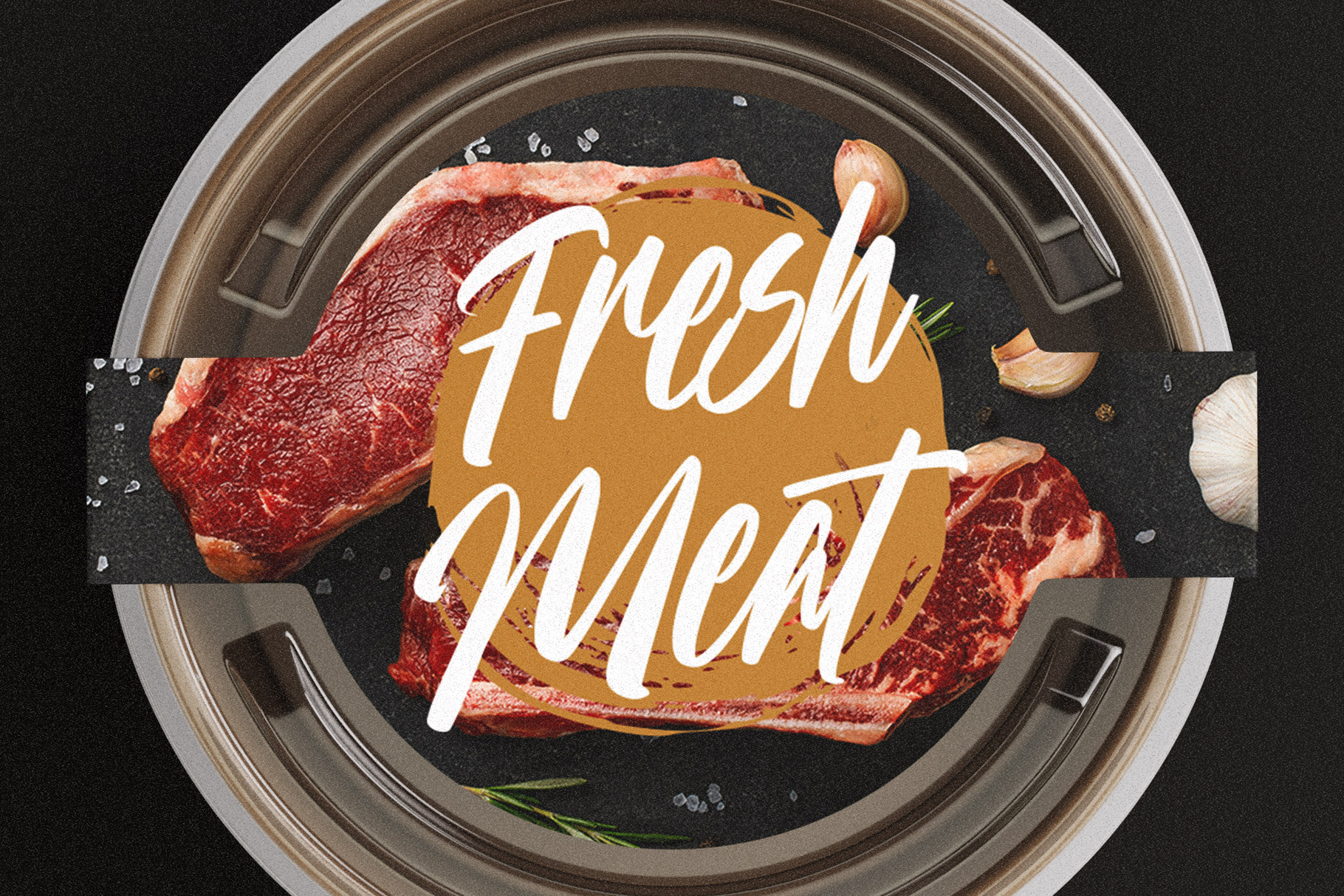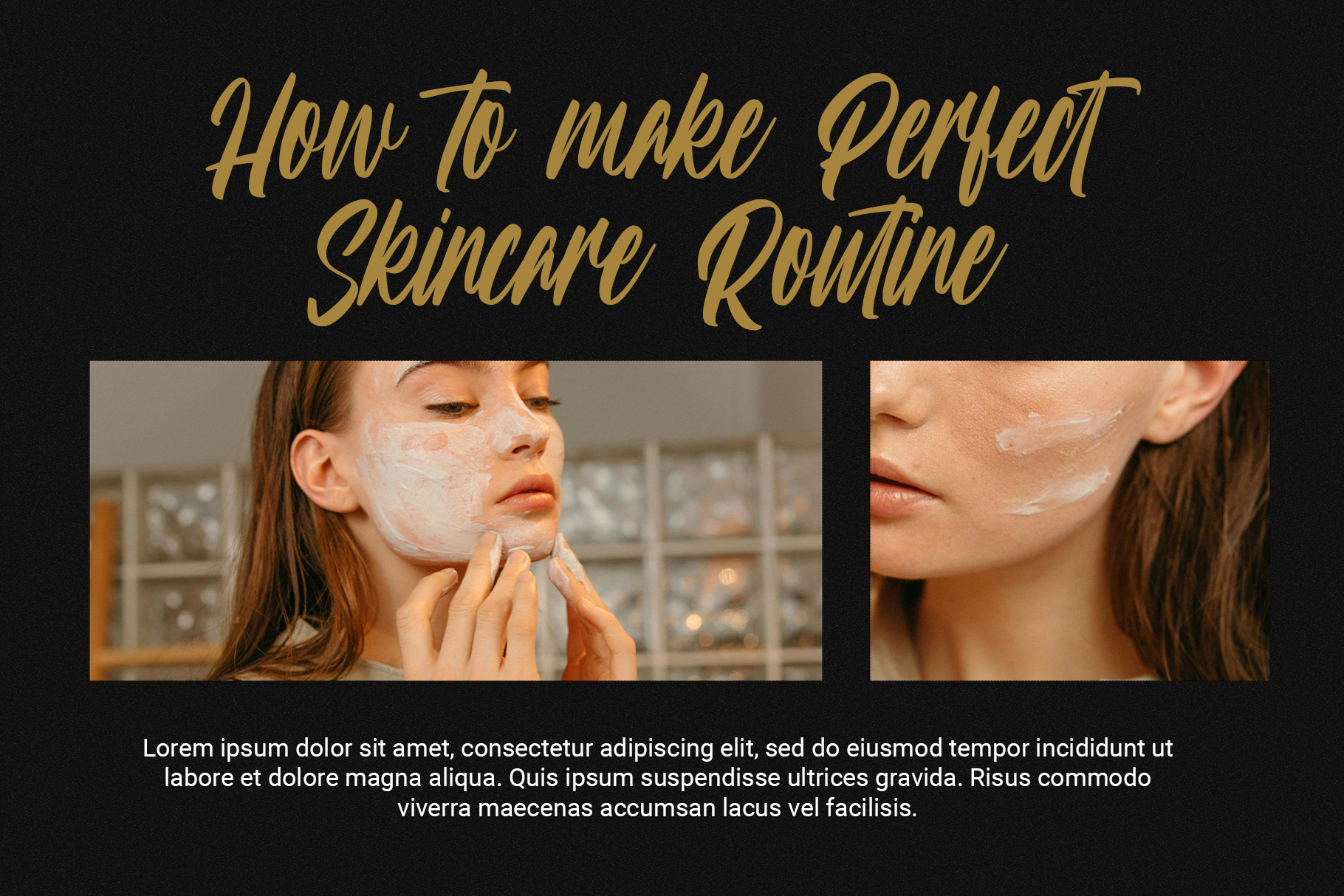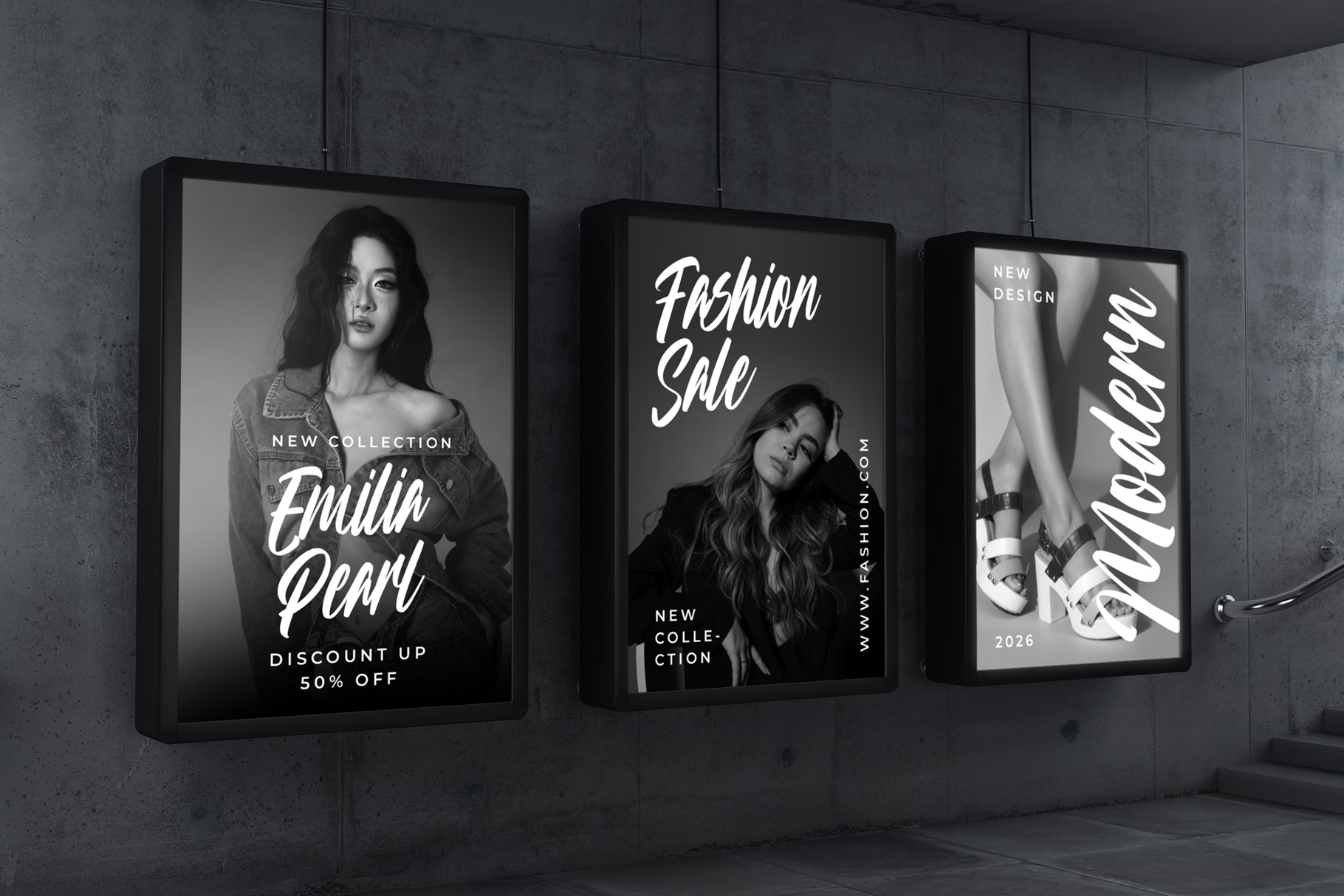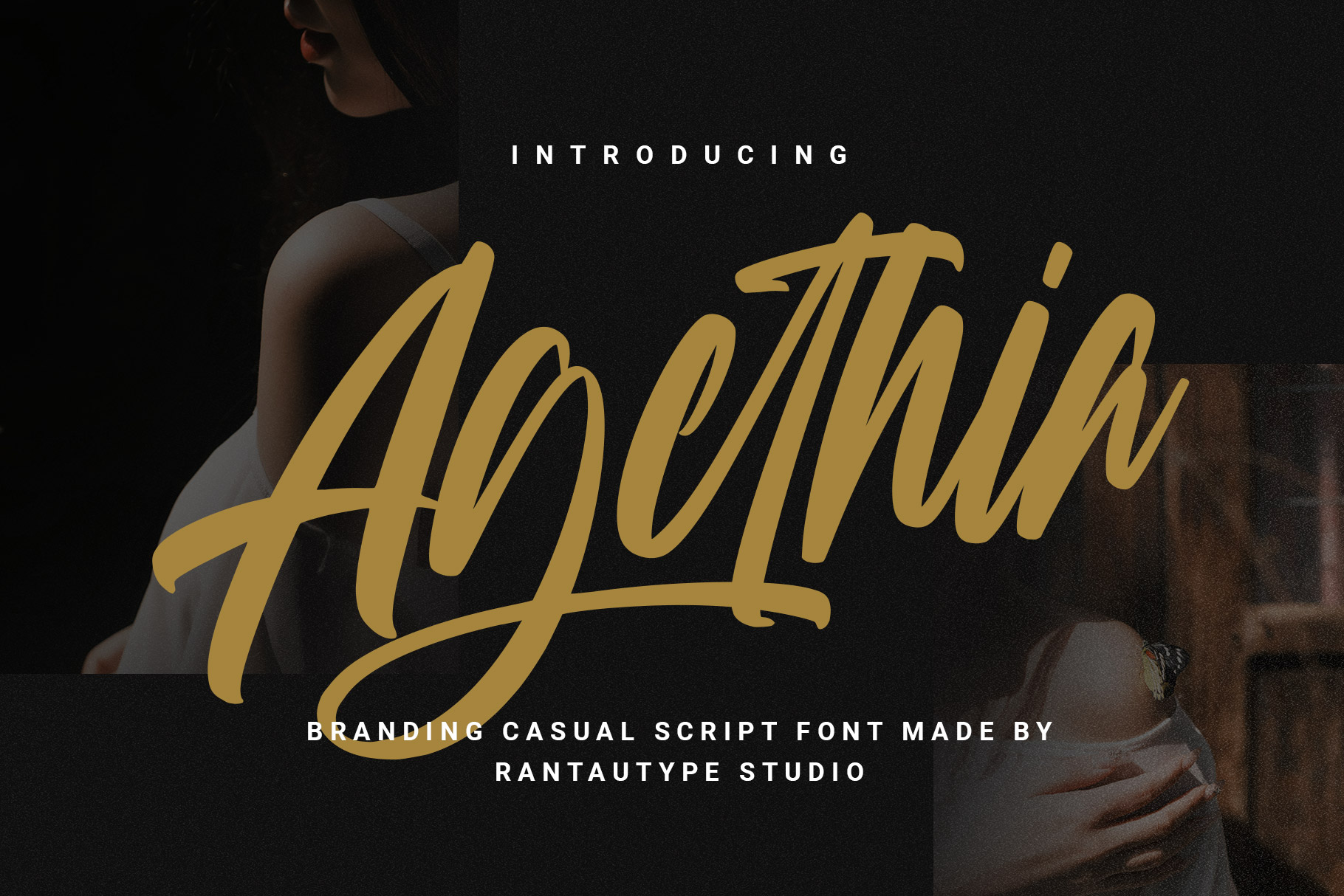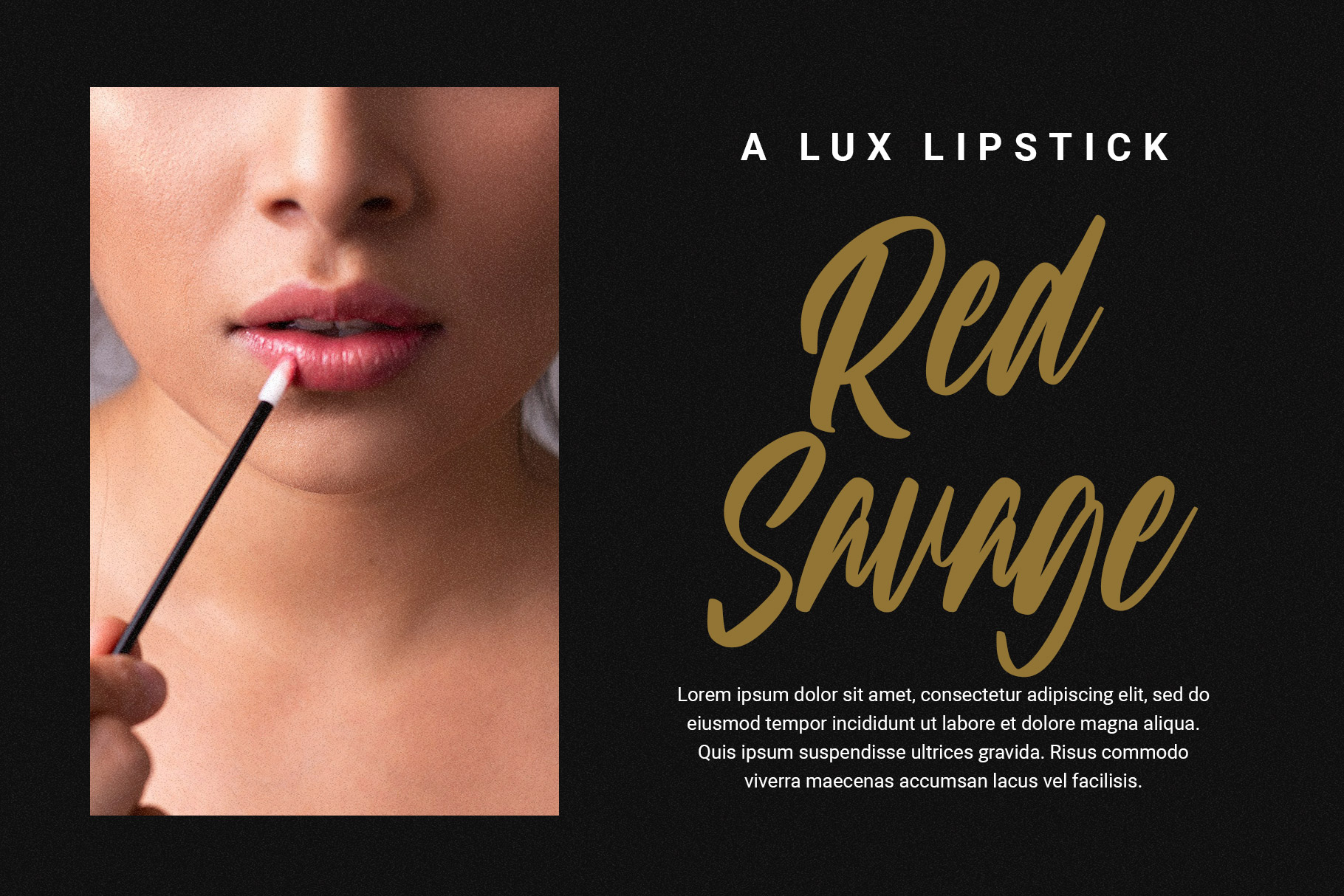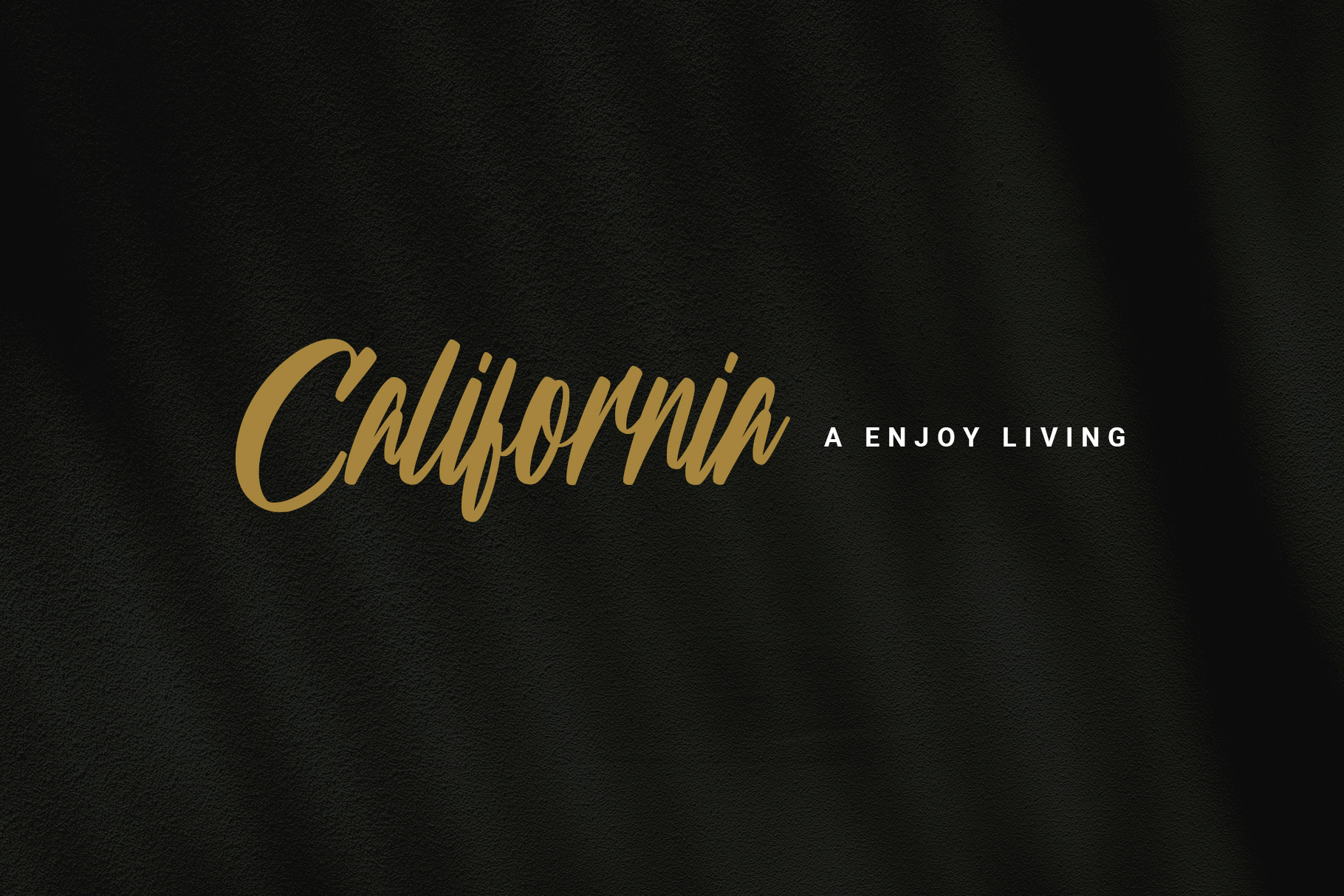
Agethia Branding Casual Script Font
Agethia designed to bring elegance, personality, and authenticity into modern visual communication. Agethia bring a script font carries the natural flow of handwriting, creating a warm and human touch that feels both sophisticated and approachable.
Agethia is a perfectly choice for any creative endeavor, creating, modern, lifestyle design such as logotype, title, cover, branding, invitations, wedding designs, display and magazine, social media posts, advertisements, printed quotes, product packaging, corporate brand, product designs, labels, photography, watermarks, special events and any other project with modern touch.